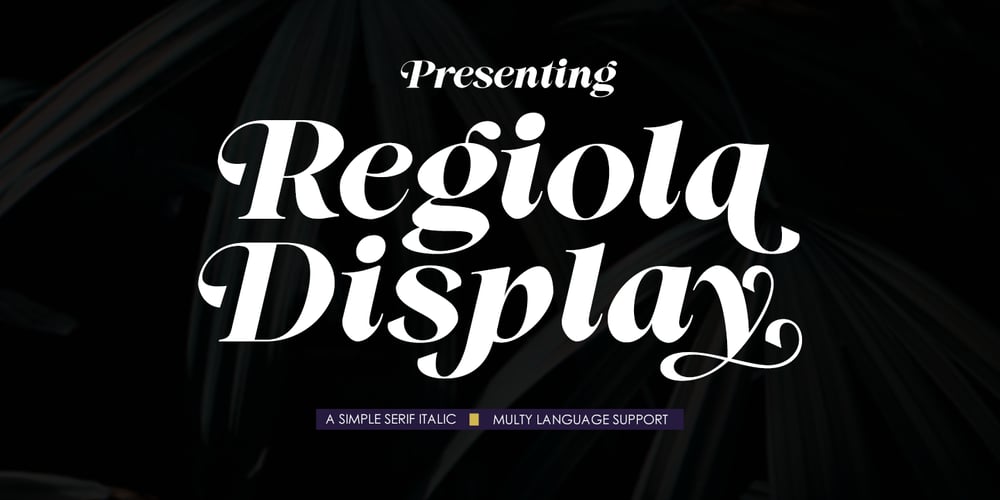
Regiola Display Font Family was designed by khaidir and published by Gatype. Regiola Display contains 1 styles and family package options. Regiola Display We are proud to present our new font. The new natural Italic serif with a classy and modern style makes this font look elegant, natural, stylish.Regiola Display is perfect for invitations, logos & branding, photography, advertising, watermarks, social media posts, product packaging, product designs, labels, wedding designs, stationery, special events, or anything needed to create a theme.What is included in this font:. Regiola Display (OF-TT)Regiola Display is built with OpenType features and includes initial and final language styles, alternative characters for most lowercase letters, numbers, punctuation, alternatives, ligatures, and also supports other languages.Enjoy!